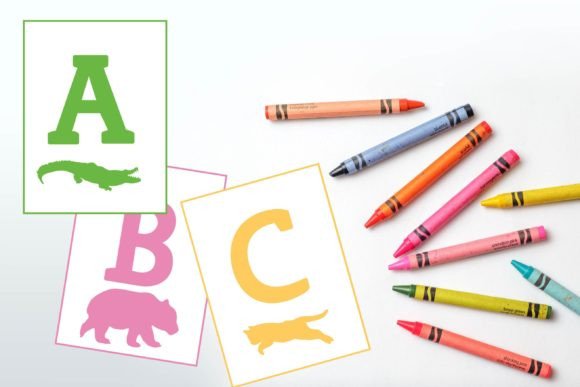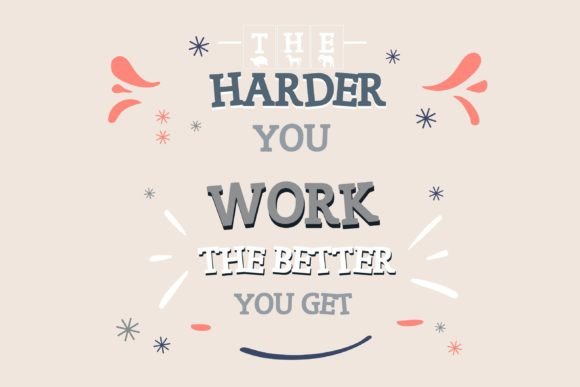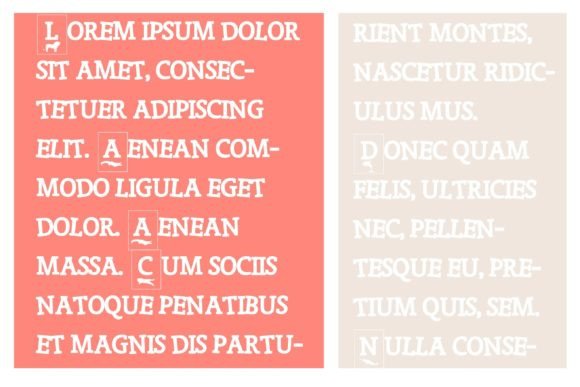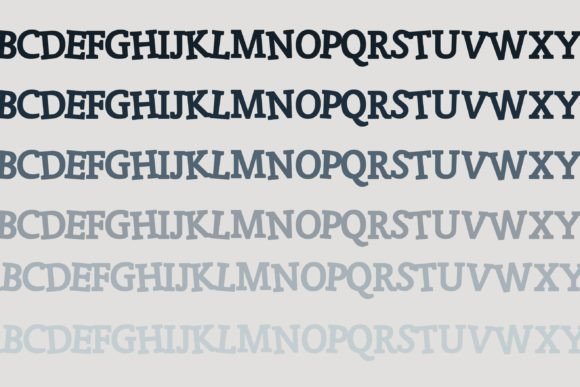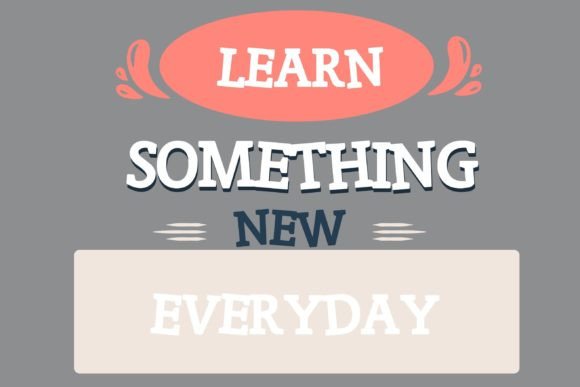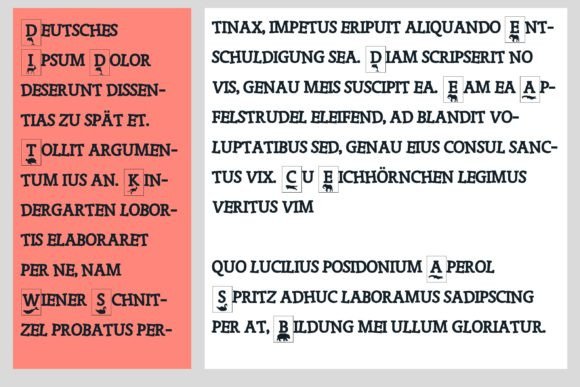
Introducing Flashcard Font: A Fun and Educational Display Font
Are you a designer or crafter looking for a unique and engaging font to add to your creative projects? Look no further than Flashcard Font, a blocky serif display font that’s both fun and educational. In this article, we’ll take a closer look at Flashcard Font, its features, and how you can use it to create spectacular designs.
What is Flashcard Font?
Flashcard Font is a blocky serif display font that features uppercase letters with built-on animal flashcards that begin with each corresponding letter. For example, the uppercase letter “A” comes with a flashcard featuring an alligator, while the uppercase letter “B” comes with a flashcard featuring a bear. The font is designed to be both visually appealing and educational, making it perfect for projects that require a fun and engaging touch.
Key Features of Flashcard Font
• Uppercase letters with built-on animal flashcards: Each uppercase letter comes with a corresponding animal flashcard, making it easy to create educational and fun designs.
• Blocky serif design: The font features a blocky serif design that’s both modern and playful.
• Mix and match uppercase and lowercase letters: The uppercase letters come with flashcards, while the lowercase letters do not, allowing you to mix and match to create unique designs.
How to Use Flashcard Font
Flashcard Font is perfect for a variety of design projects, including:
• Educational materials: Use Flashcard Font to create fun and engaging educational materials, such as alphabet charts, flashcards, and worksheets.
• Children’s books and magazines: Add a playful touch to your children’s books and magazines with Flashcard Font.
• Signs and posters: Use Flashcard Font to create eye-catching signs and posters that are sure to grab attention.
• Digital graphics and animations: Flashcard Font is perfect for creating digital graphics and animations that require a fun and educational touch.
Tips and Tricks for Using Flashcard Font
Here are a few tips and tricks for getting the most out of Flashcard Font:
• Experiment with different colors and textures: Add an extra layer of depth and interest to your designs by experimenting with different colors and textures.
• Mix and match uppercase and lowercase letters: Don’t be afraid to mix and match uppercase and lowercase letters to create unique and interesting designs.
• Use Flashcard Font in combination with other fonts: Flashcard Font pairs well with a variety of other fonts, so don’t be afraid to experiment with different combinations.
Flashcard Font is a fun and educational display font that’s perfect for designers and crafters looking to add a unique touch to their projects. With its blocky serif design and built-on animal flashcards, Flashcard Font is sure to grab attention and engage your audience. Whether you’re creating educational materials, children’s books, or signs and posters, Flashcard Font is a great choice. So why not give it a try and see what amazing designs you can create?